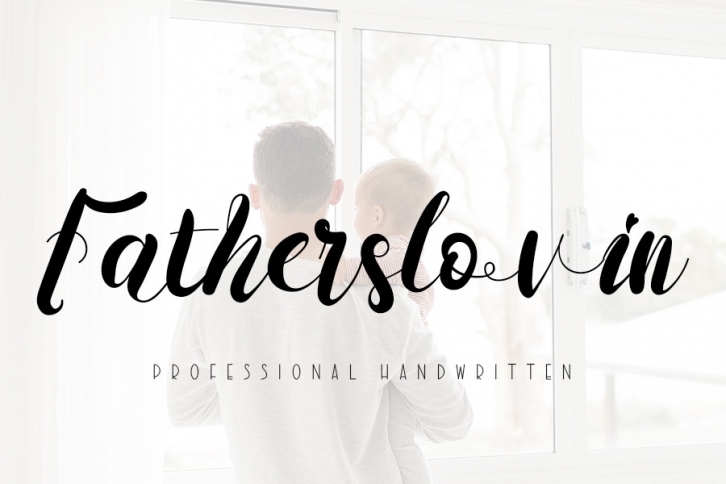
Fatherslovin is a ravishing and whimsical handwritten font. It has a modern and unique style and it will undoubtedly immerse your designs into a magical world.